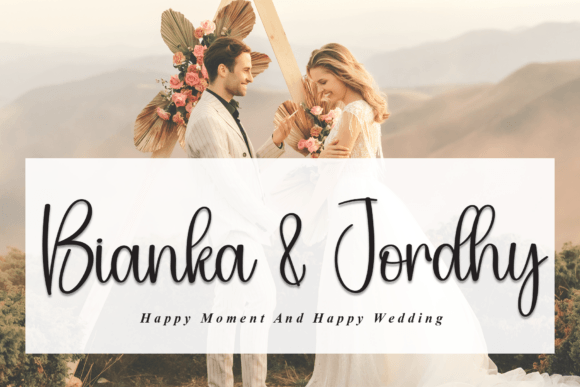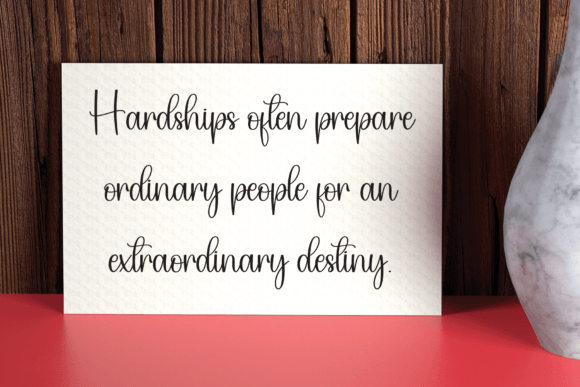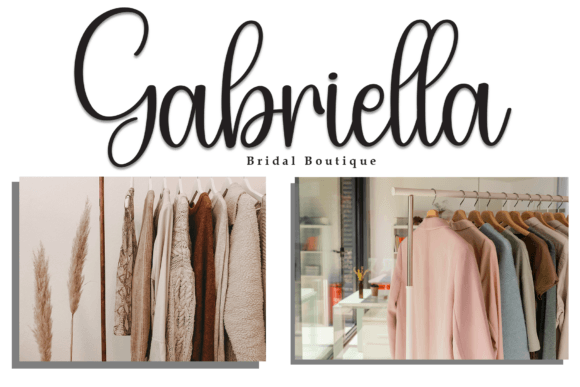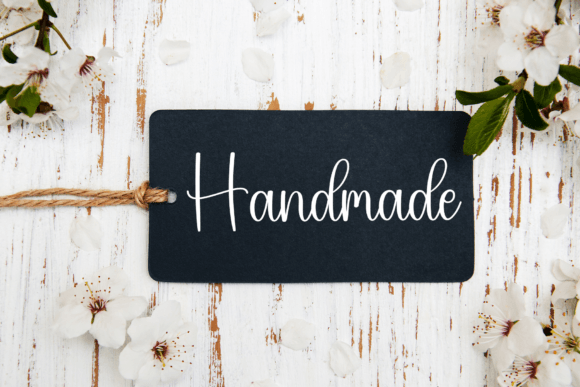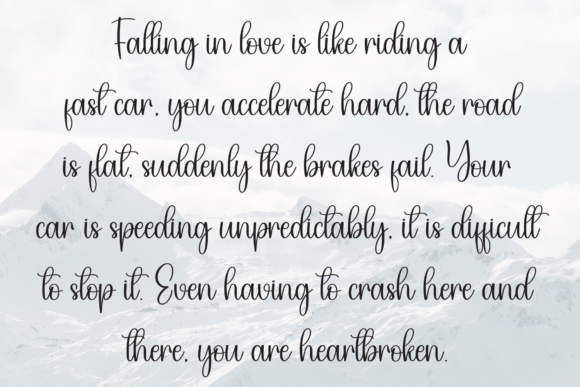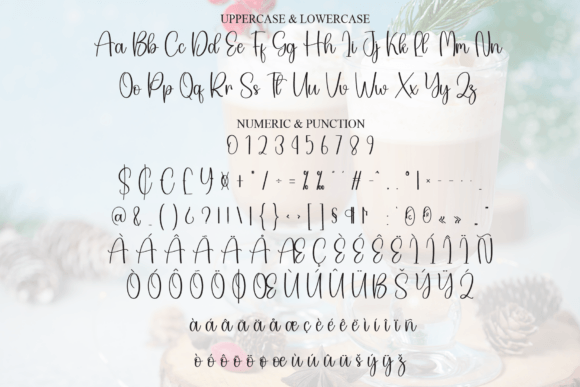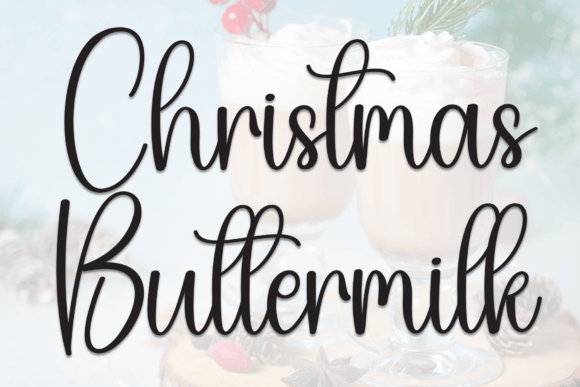
Introducing Christmas Buttermilk Font: The Perfect Holiday Companion for Designers and Crafters
The holiday season is upon us, and with it comes the need for festive and fun designs that capture the spirit of Christmas. For designers and crafters looking to add a personal touch to their holiday cards, decorations, and crafts, the Christmas Buttermilk Font is a perfect companion. This delightful script font is designed to bring a playful and cozy feel to your designs, making it an ideal choice for anyone looking to create warm and inviting holiday-themed projects.
What is Christmas Buttermilk Font?
Christmas Buttermilk is a fun and festive script font that features smooth, flowing letters with a playful and cozy feel. The font’s swirls and curves add a warm, handmade touch to your designs, making it perfect for holiday cards, decorations, and crafts. Whether you’re a designer looking to create professional-looking holiday graphics or a crafter seeking to add a personal touch to your DIY projects, Christmas Buttermilk Font is sure to become your go-to font for the holiday season.
Key Features of Christmas Buttermilk Font
- Smooth and Flowing Letters: The Christmas Buttermilk Font features smooth and flowing letters that are easy to read and fun to use.
- Playful and Cozy Feel: The font’s playful and cozy feel makes it perfect for holiday designs that require a personal touch.
- Swirls and Curves: The font’s swirls and curves add a warm, handmade touch to your designs, making them look like they were created with love and care.
- Festive and Fun: The Christmas Buttermilk Font is designed to be festive and fun, making it perfect for holiday cards, decorations, and crafts.
Uses for Christmas Buttermilk Font
The Christmas Buttermilk Font is a versatile font that can be used for a wide range of holiday designs, including:
- Holiday Cards: Create beautiful and personalized holiday cards for friends and family using the Christmas Buttermilk Font.
- Decorations: Add a festive touch to your holiday decorations with the Christmas Buttermilk Font, perfect for creating signs, banners, and other decorative items.
- Crafts: Use the Christmas Buttermilk Font to add a personal touch to your holiday crafts, such as scrapbooking, journaling, and paper crafting.
- Digital Designs: The Christmas Buttermilk Font can also be used for digital designs, such as social media graphics, blog posts, and email newsletters.
Why Choose Christmas Buttermilk Font?
There are many fonts available that can add a festive touch to your holiday designs, but the Christmas Buttermilk Font stands out for several reasons:
- Unique and Handmade Look: The Christmas Buttermilk Font has a unique and handmade look that sets it apart from other fonts.
- Versatile: The Christmas Buttermilk Font can be used for a wide range of holiday designs, from cards and decorations to digital designs.
The Christmas Buttermilk Font is a fun and festive script font that is perfect for designers and crafters looking to add a personal touch to their holiday designs. With its smooth and flowing letters, playful and cozy feel, and swirls and curves, this font is sure to become a favorite for anyone looking to create warm and inviting holiday-themed projects. Whether you’re creating holiday cards, decorations, or crafts, the Christmas Buttermilk Font is a great choice for adding a festive and fun touch to your designs.